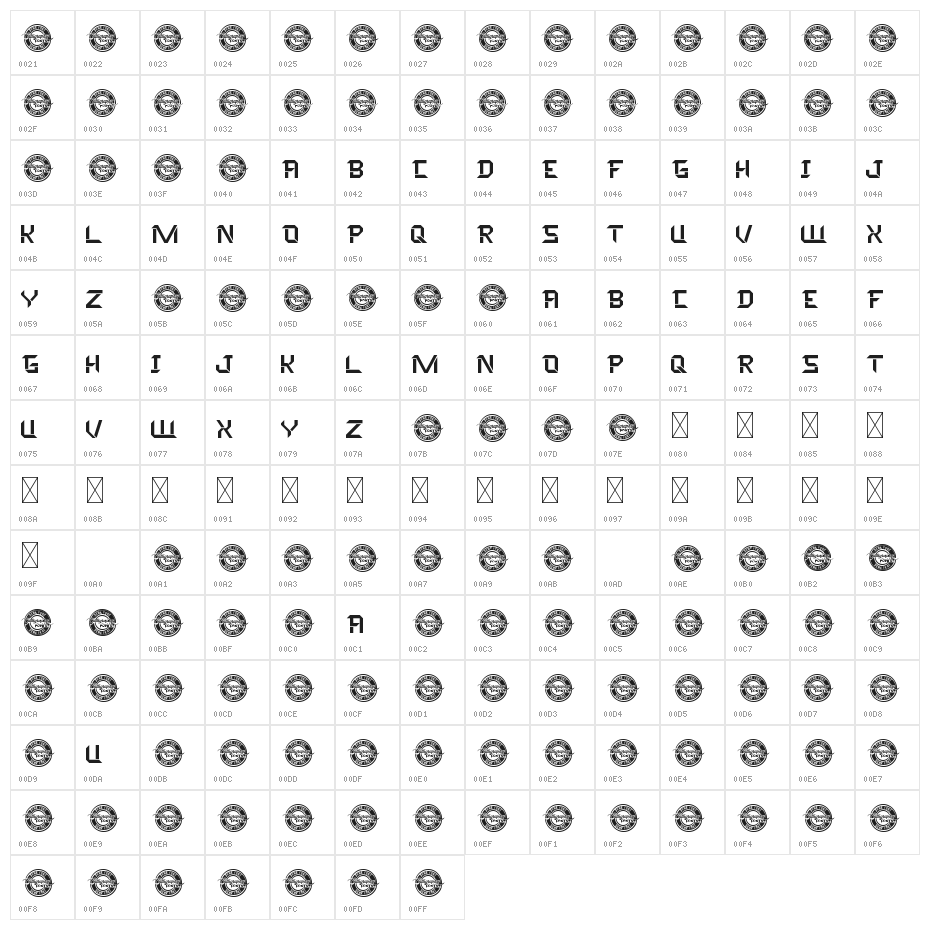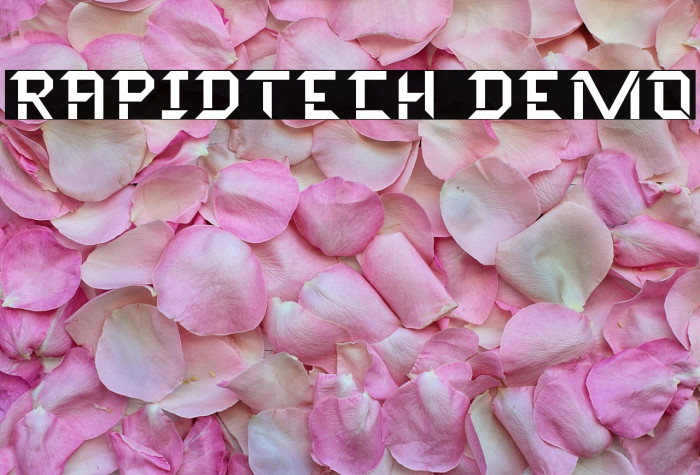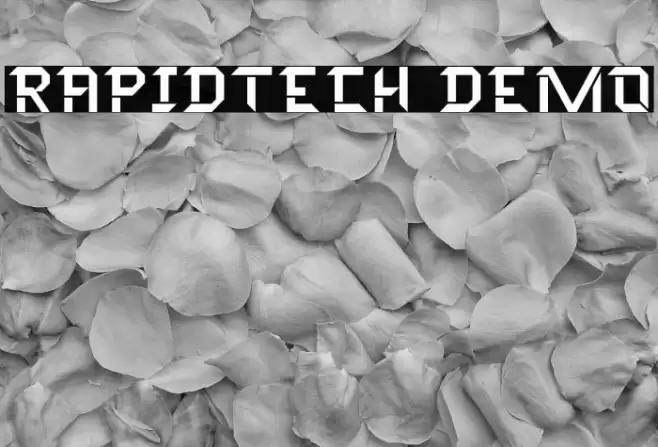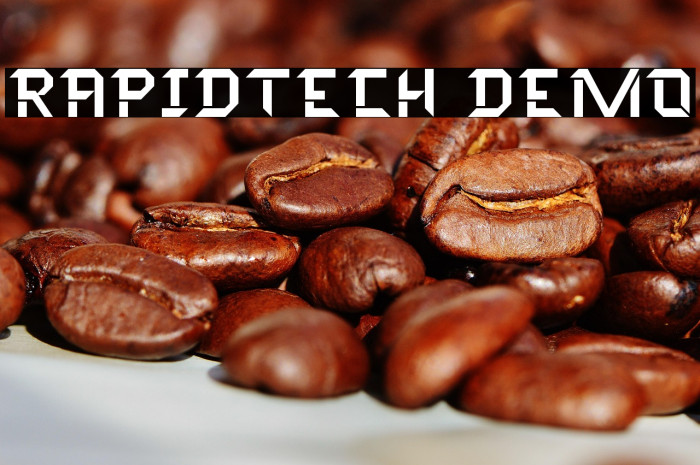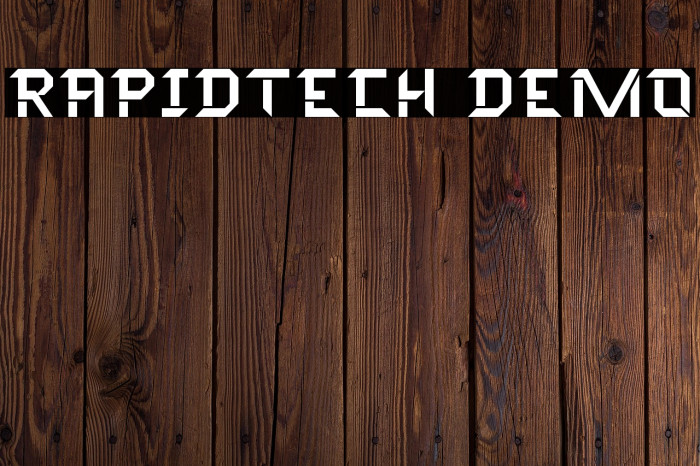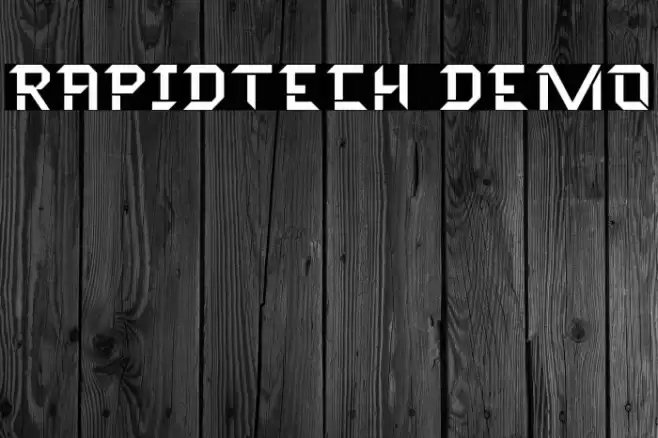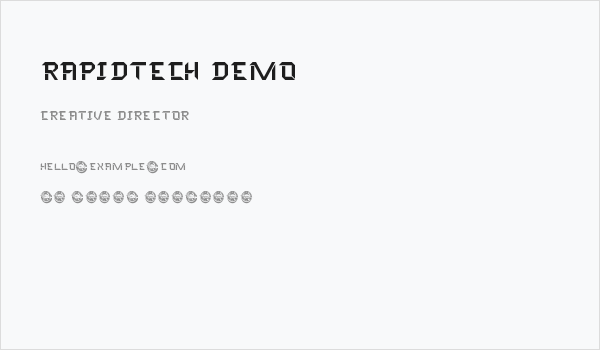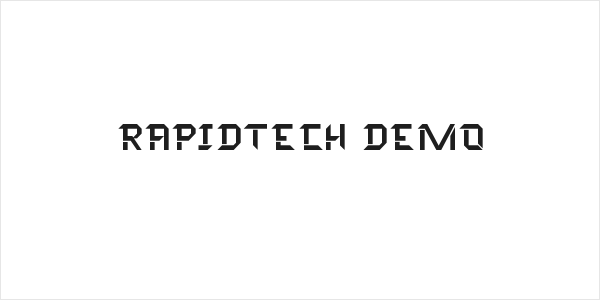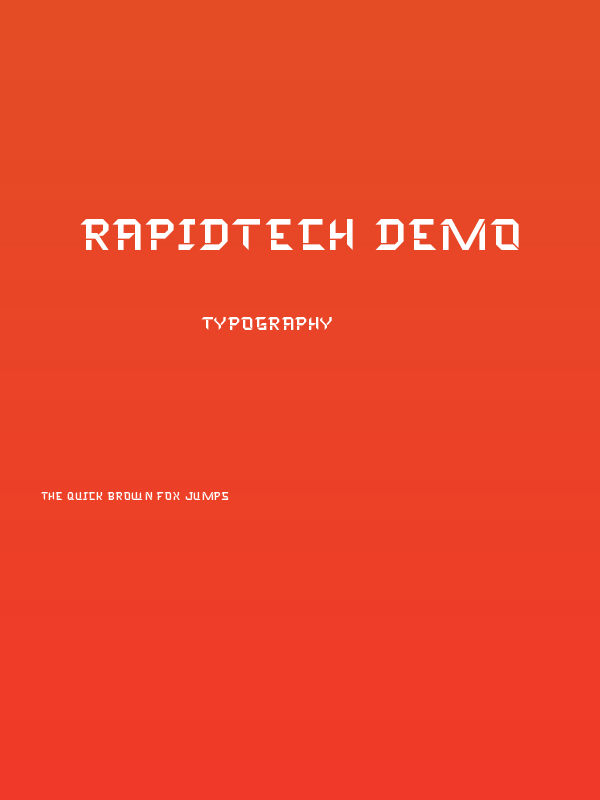
Rapidtech Demo Font
Rapidtech Demo Description
This font features a bold, geometric design with sharp angles and a futuristic aesthetic. The characters are constructed with a series of straight lines and angular cuts, giving them a distinctive, modern look. The uppercase letters are particularly striking, with a uniform height and consistent line thickness throughout. The font's style is reminiscent of digital or technological themes, making it suitable for projects that require a contemporary and edgy appearance. The overall design is clean and uncluttered, emphasizing readability while maintaining a unique visual appeal.
| Use Case | Logos, Headlines, Digital Media |
| Proposed Projects | Ideal for technology branding, digital media, video game titles, and modern advertising campaigns. |